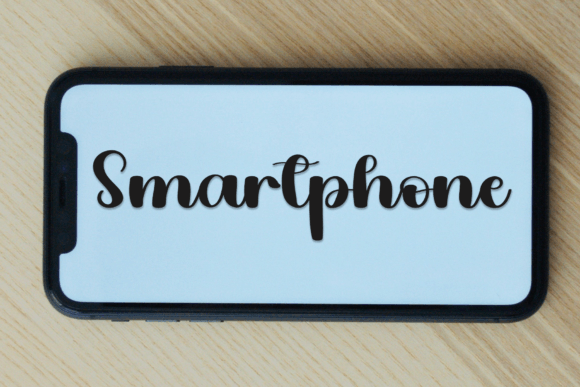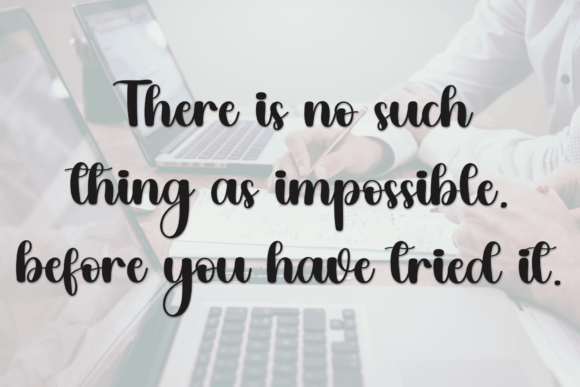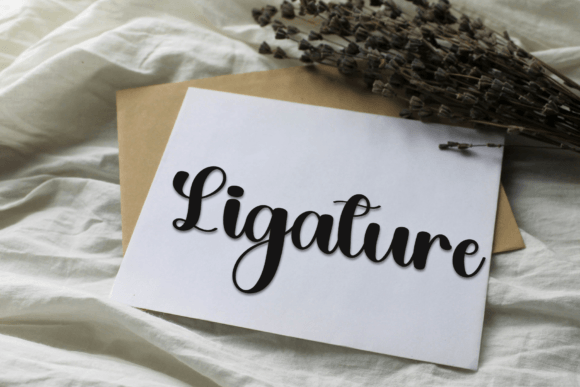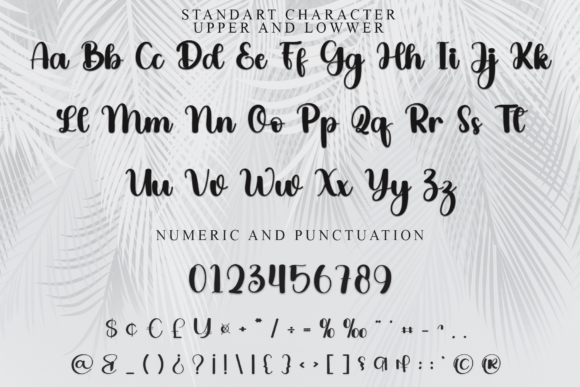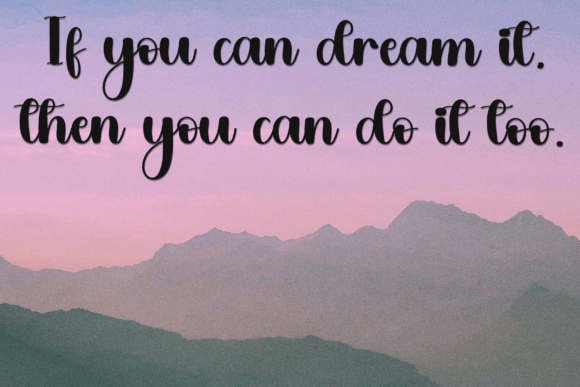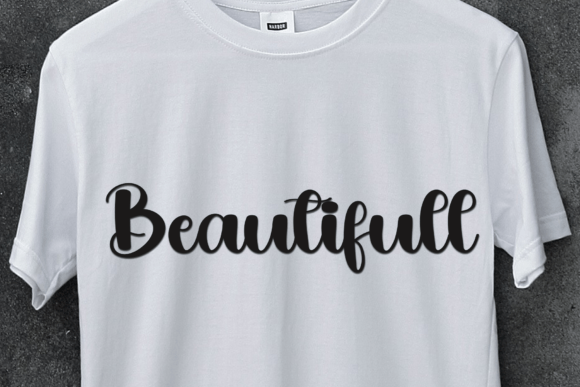
Candy Pink Font: The Sweetest Addition to Your Design Arsenal
Are you on the hunt for a font that adds a touch of sweetness and elegance to your designs? Look no further than Candy Pink, a lovely and timeless handwritten font that’s perfect for creating eye-catching logos, branding, and quotes. In this article, we’ll dive into the world of Candy Pink Font, exploring its unique features, uses, and benefits for designers and crafters.
The Charm of Candy Pink Font
Candy Pink Font is a beautiful, handwritten font that exudes a sense of playfulness and sophistication. Its unique, cursive style is reminiscent of traditional calligraphy, but with a modern twist that makes it perfect for contemporary designs. Every letter has a distinctive and beautiful touch, which will make your design come alive and leave a lasting impression on your audience.
What Makes Candy Pink Font So Special?
So, what sets Candy Pink Font apart from other fonts out there? Here are just a few of its standout features:
- Unique and Beautiful Touch: Each letter in Candy Pink Font has been carefully crafted to have its own unique personality, making your designs truly one-of-a-kind.
- Timeless Appeal: Unlike trendy fonts that quickly go out of style, Candy Pink Font has a timeless quality that ensures your designs will remain fresh and relevant for years to come.
- Elegant and Playful: Candy Pink Font strikes the perfect balance between elegance and playfulness, making it suitable for a wide range of design applications, from logos and branding to quotes and social media graphics.
Uses for Candy Pink Font
Candy Pink Font is an incredibly versatile font that can be used in a variety of design projects, including:
- Logos and Branding: Create a memorable and eye-catching logo that sets your brand apart from the competition.
- Quotes and Social Media Graphics: Add a touch of personality and style to your quotes and social media graphics, making them perfect for sharing on Instagram, Facebook, and more.
- Stationery and Invitations: Add a touch of elegance and sophistication to your stationery, invitations, and other paper goods.
- Web Design: Use Candy Pink Font to create beautiful and engaging website headers, titles, and other design elements.
Tips for Using Candy Pink Font
To get the most out of Candy Pink Font, here are a few tips to keep in mind:
- Use it Sparingly: While Candy Pink Font is beautiful, it’s best used sparingly to avoid overwhelming your design. Use it for headings, titles, or key phrases to add emphasis and visual interest.
- Pair it with Other Fonts: Experiment with pairing Candy Pink Font with other fonts to create a unique and visually appealing combination.
In conclusion, Candy Pink Font is a sweet and stylish addition to any designer’s arsenal. Its unique and beautiful touch, timeless appeal, and elegant and playful style make it perfect for a wide range of design applications. Whether you’re a seasoned designer or a crafter looking to add a personal touch to your projects, Candy Pink Font is sure to delight. So why not give it a try and see the magic for yourself?